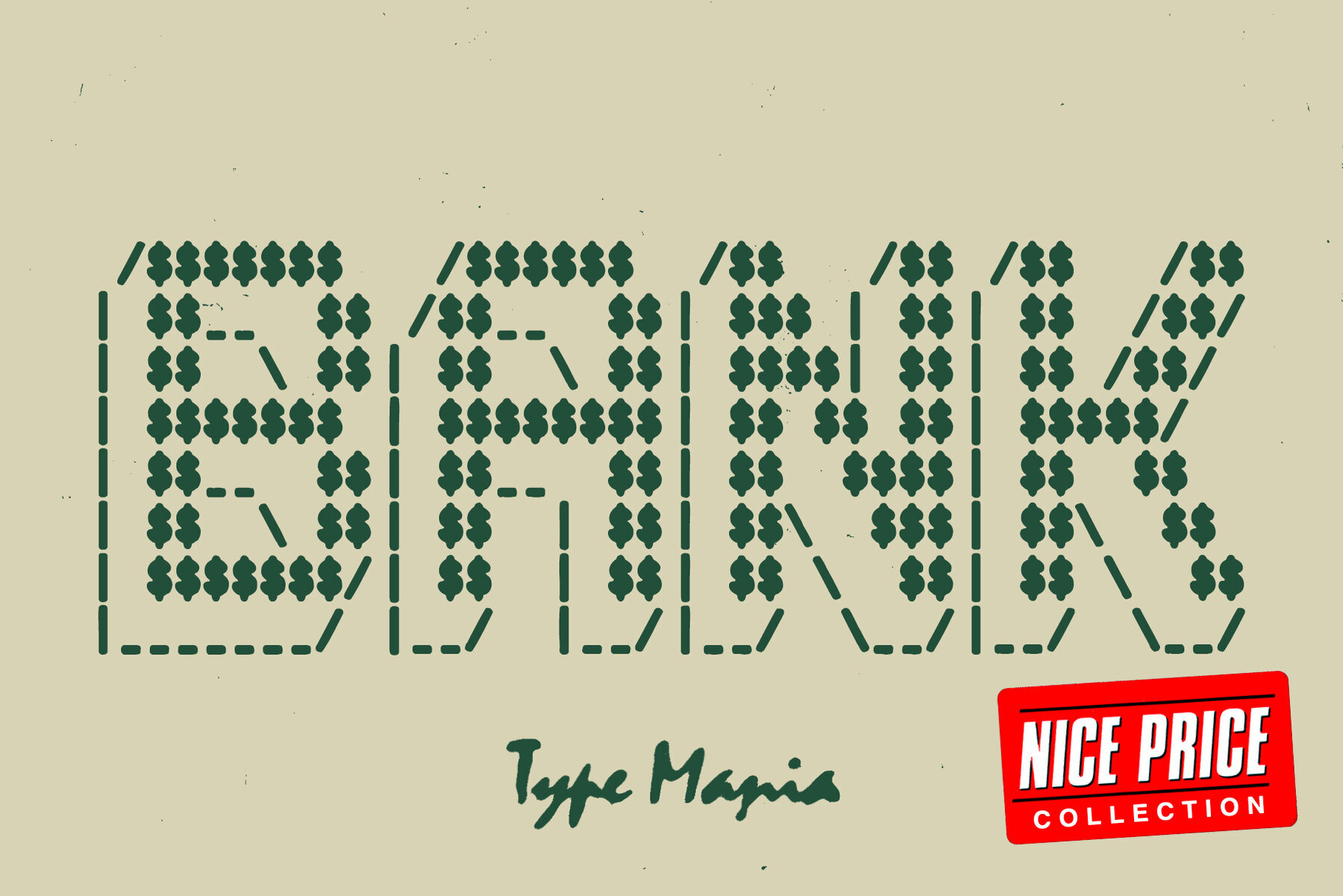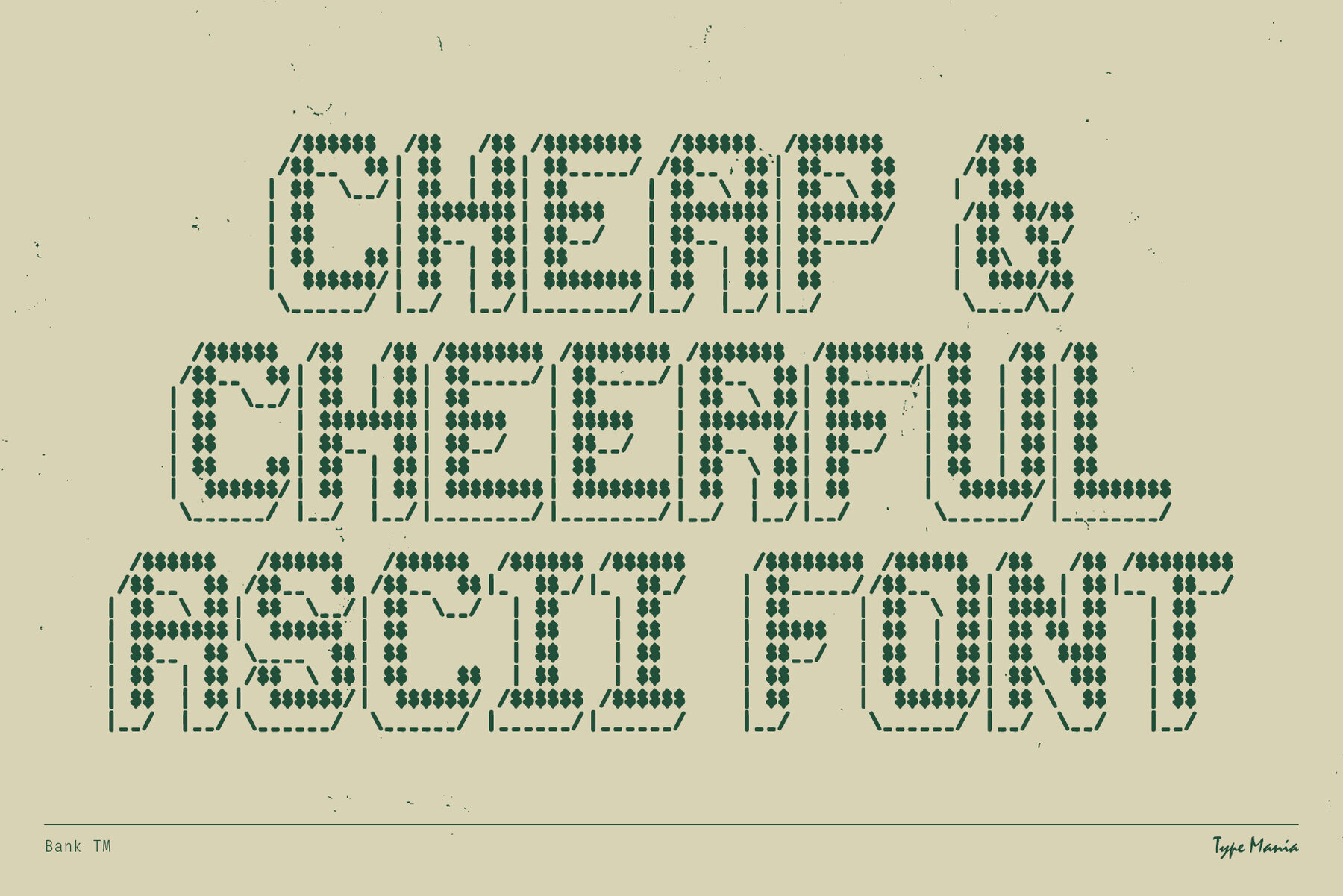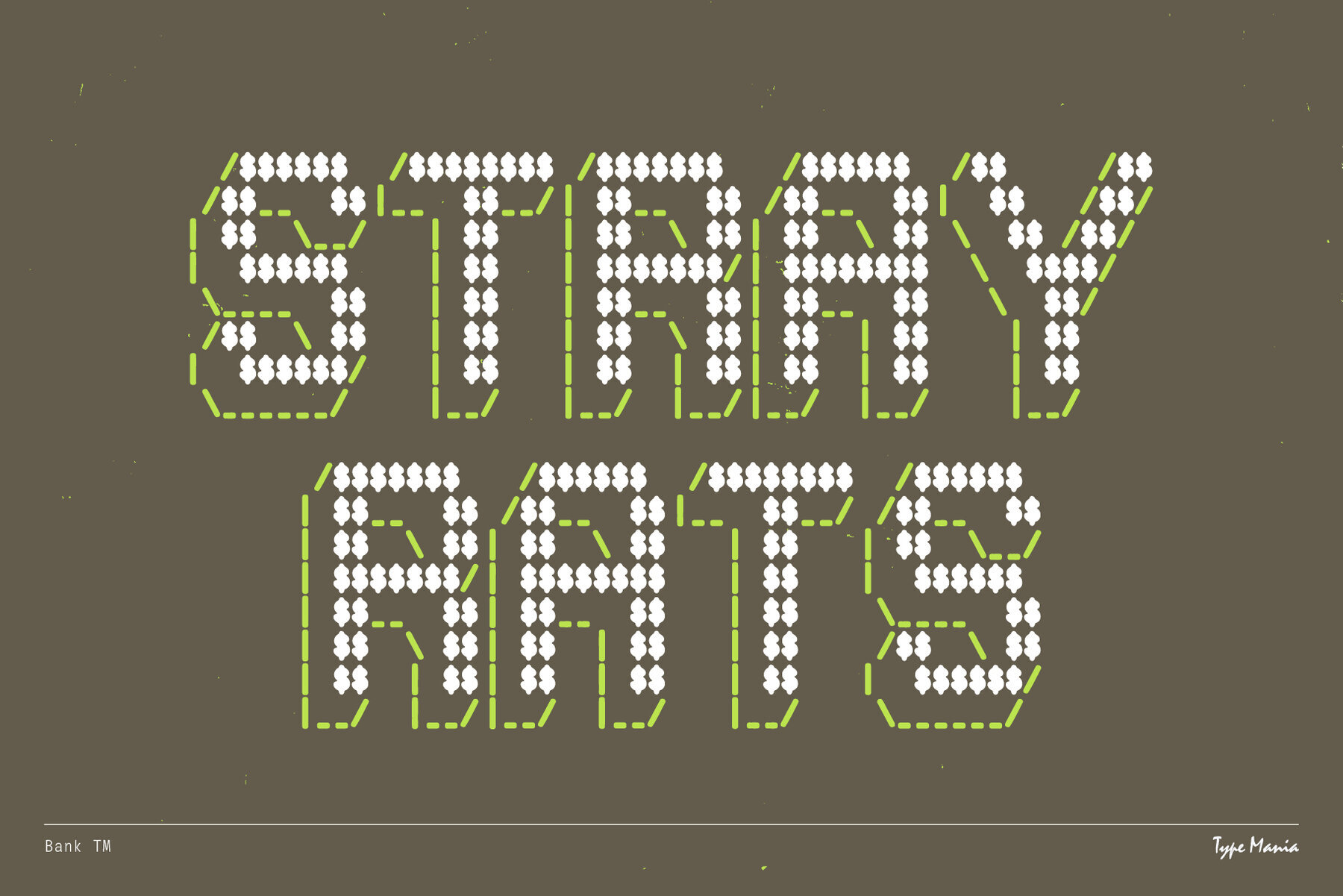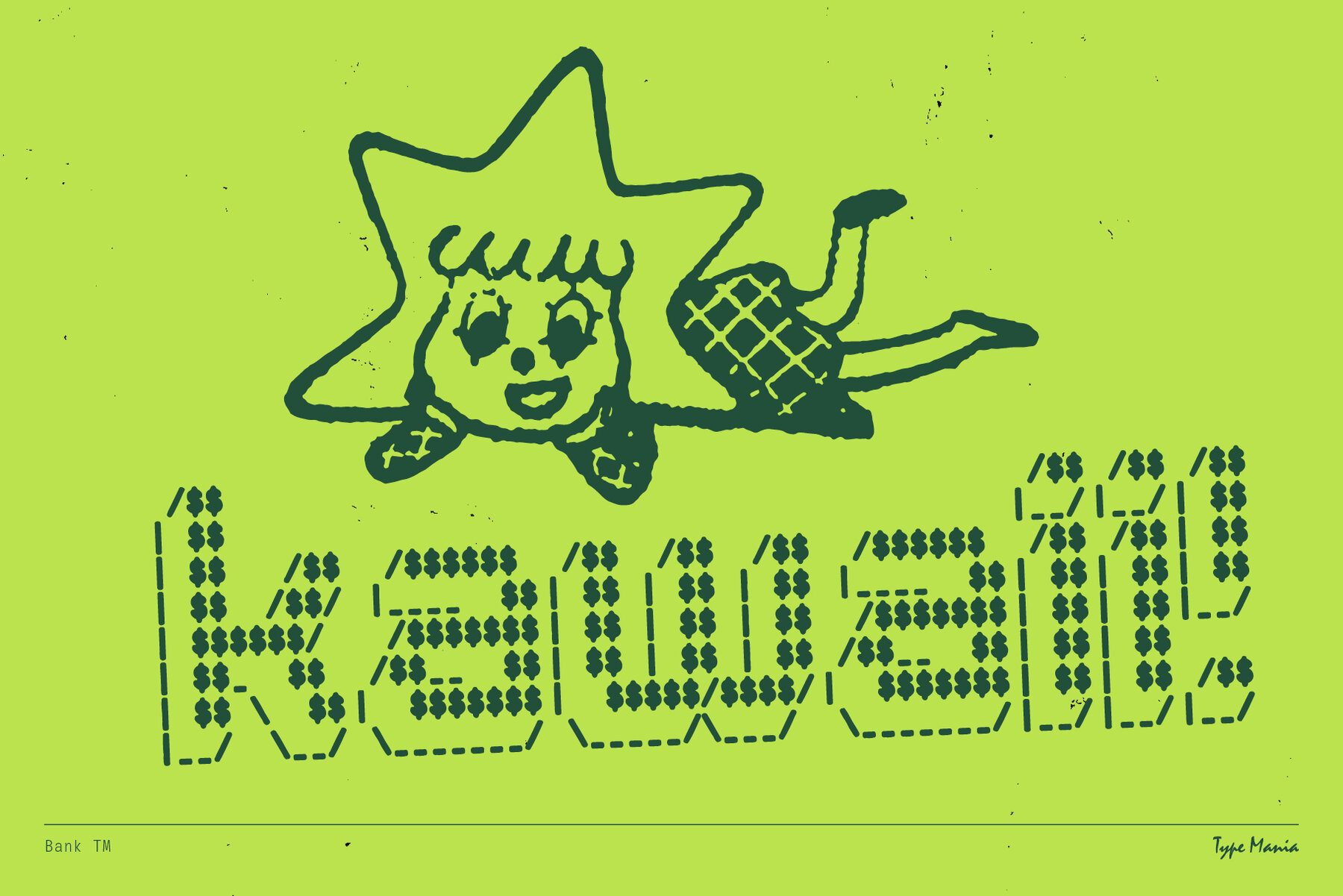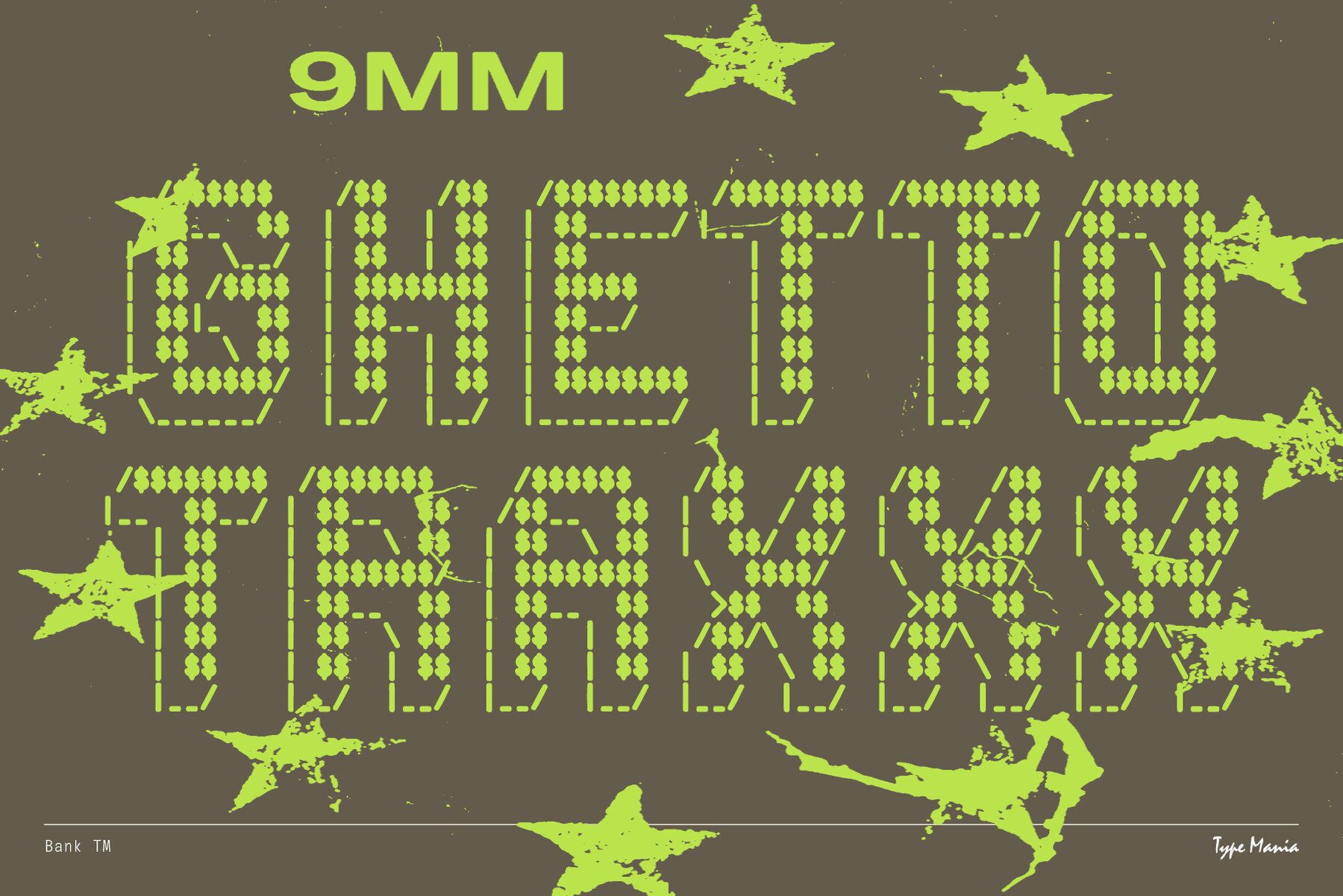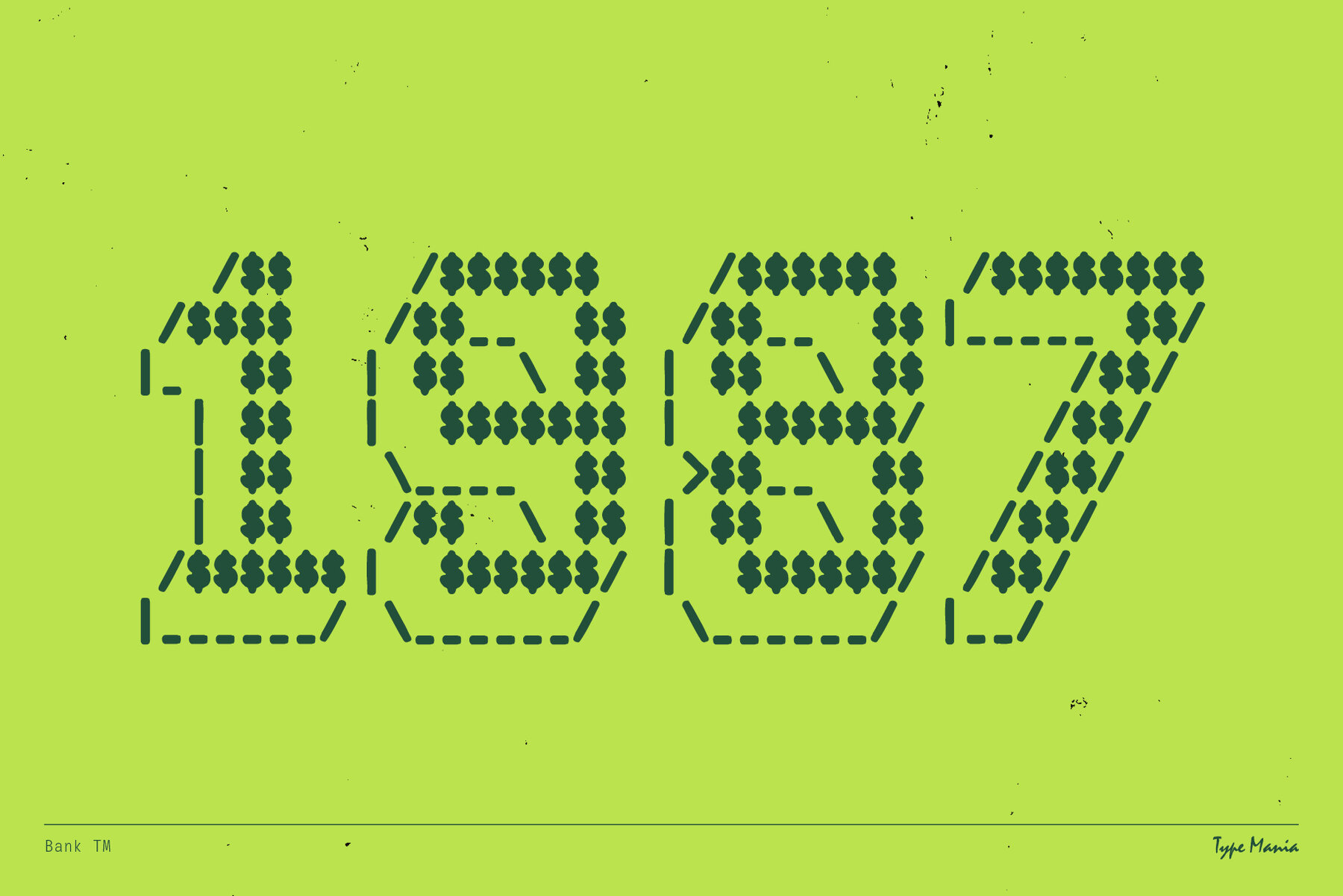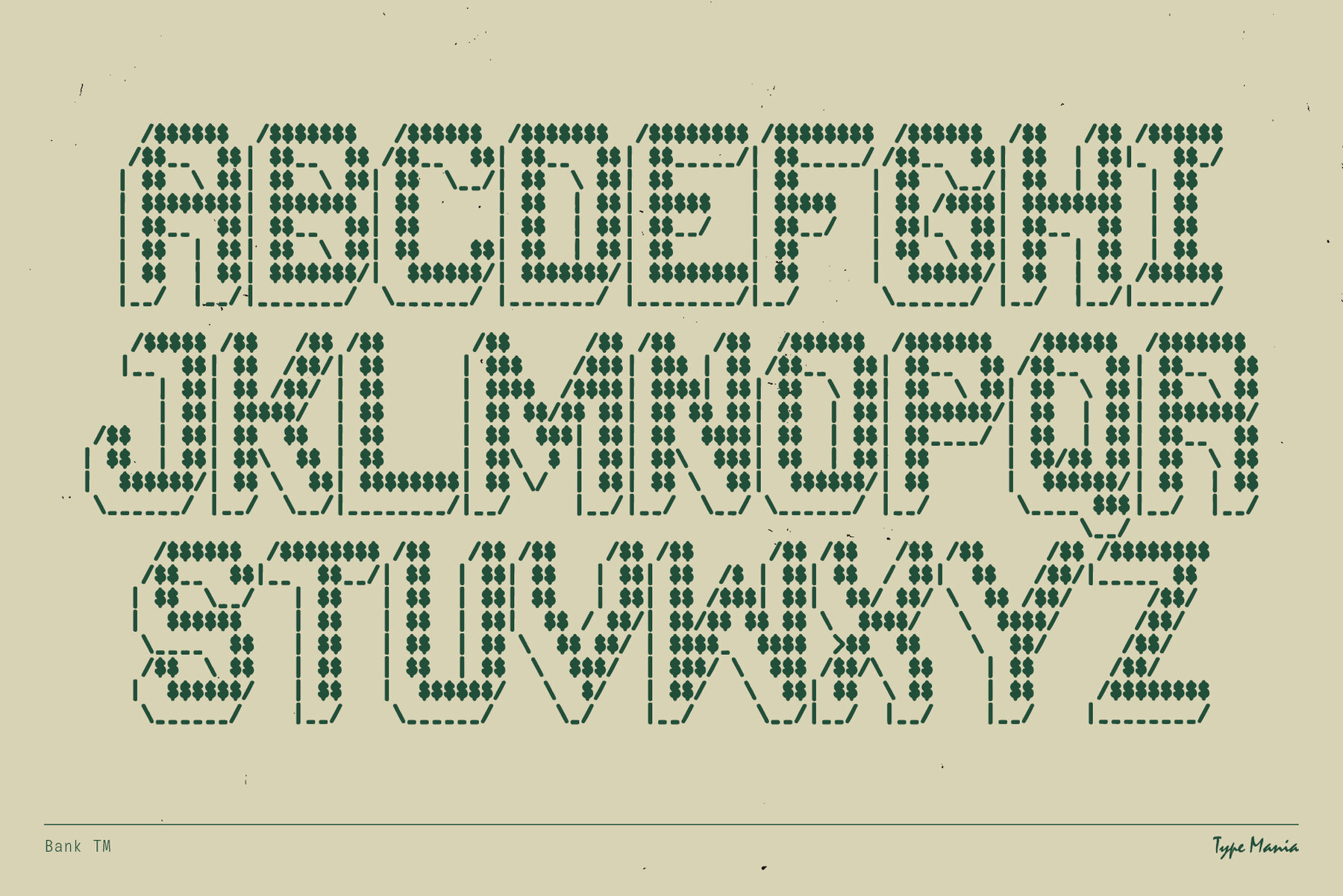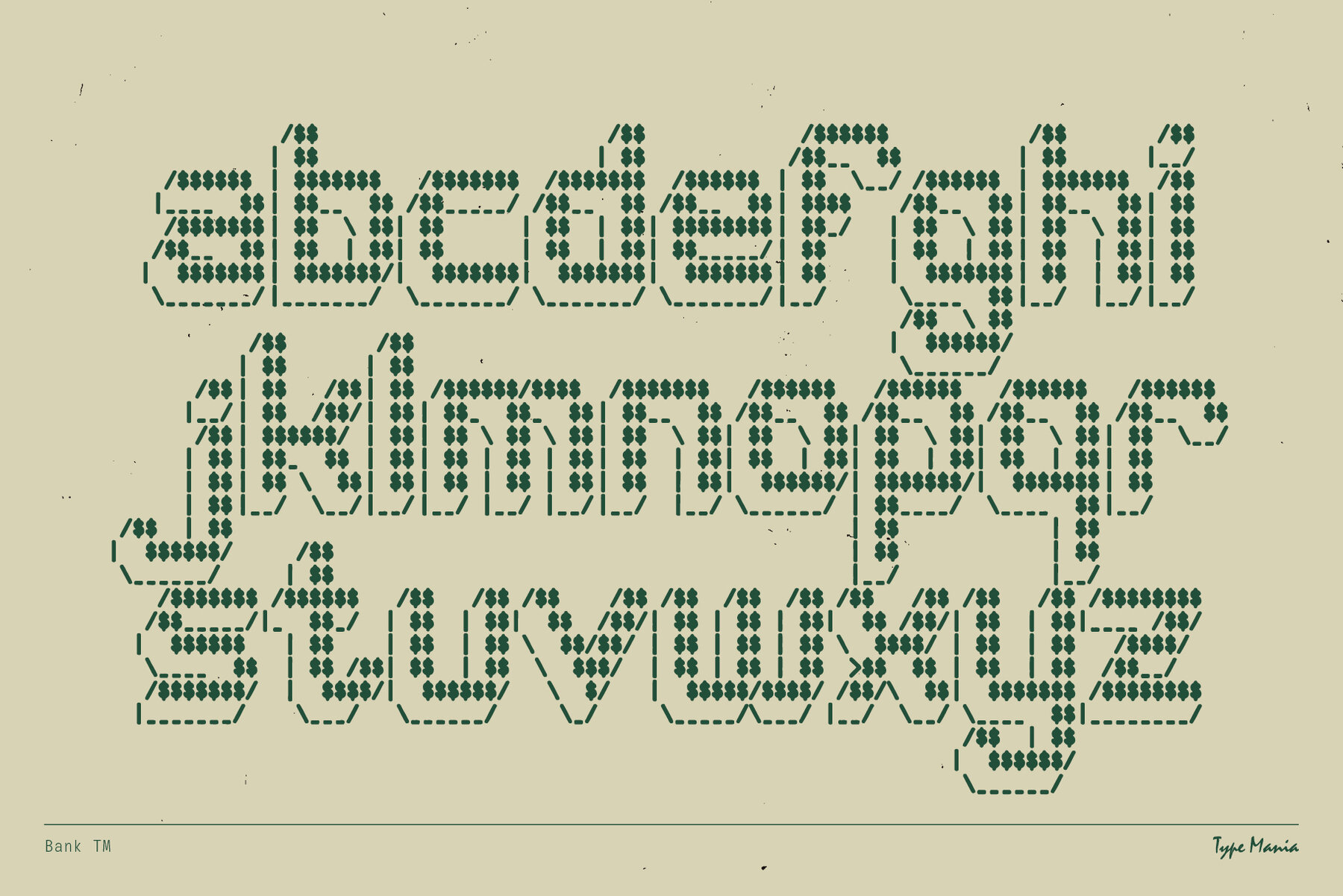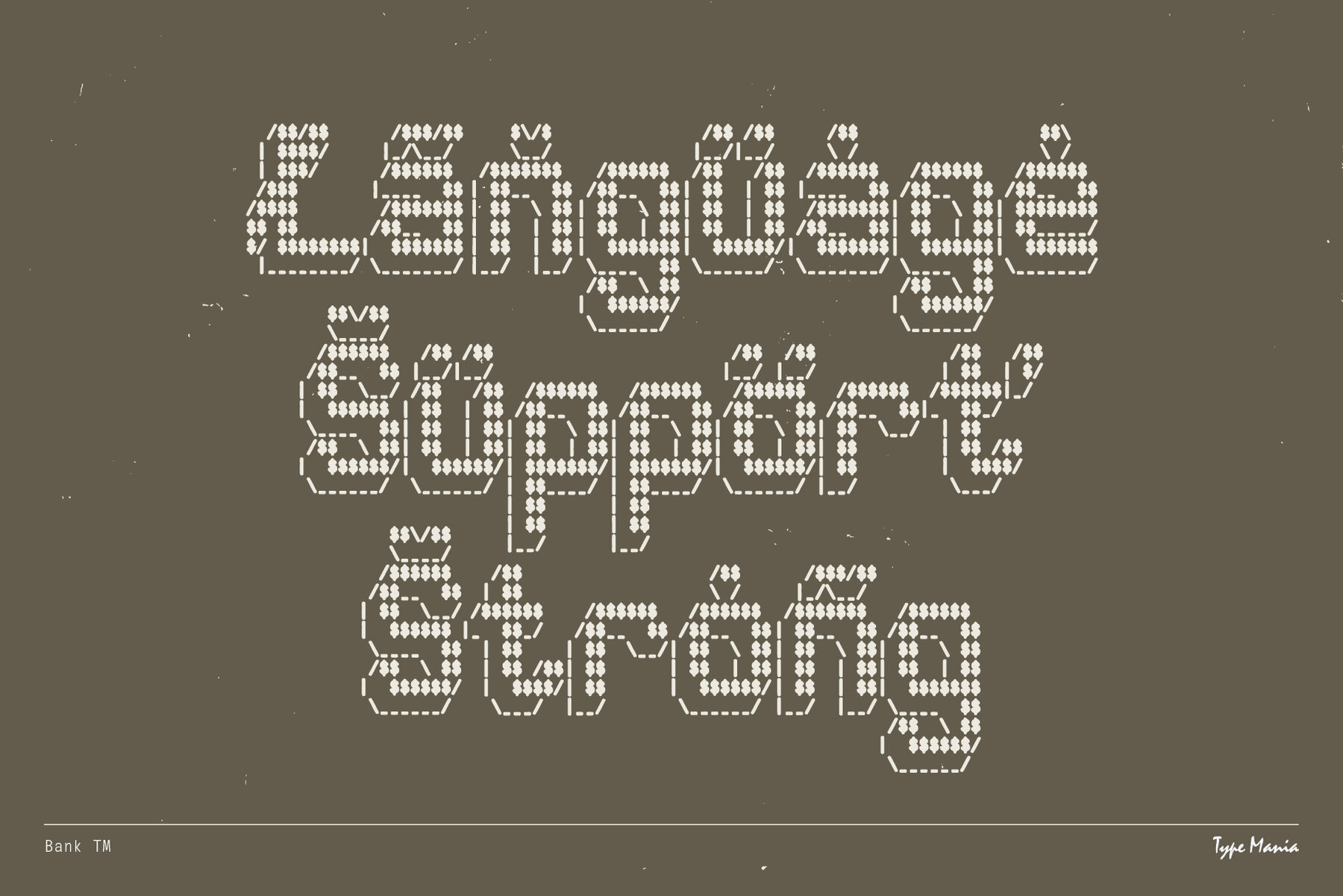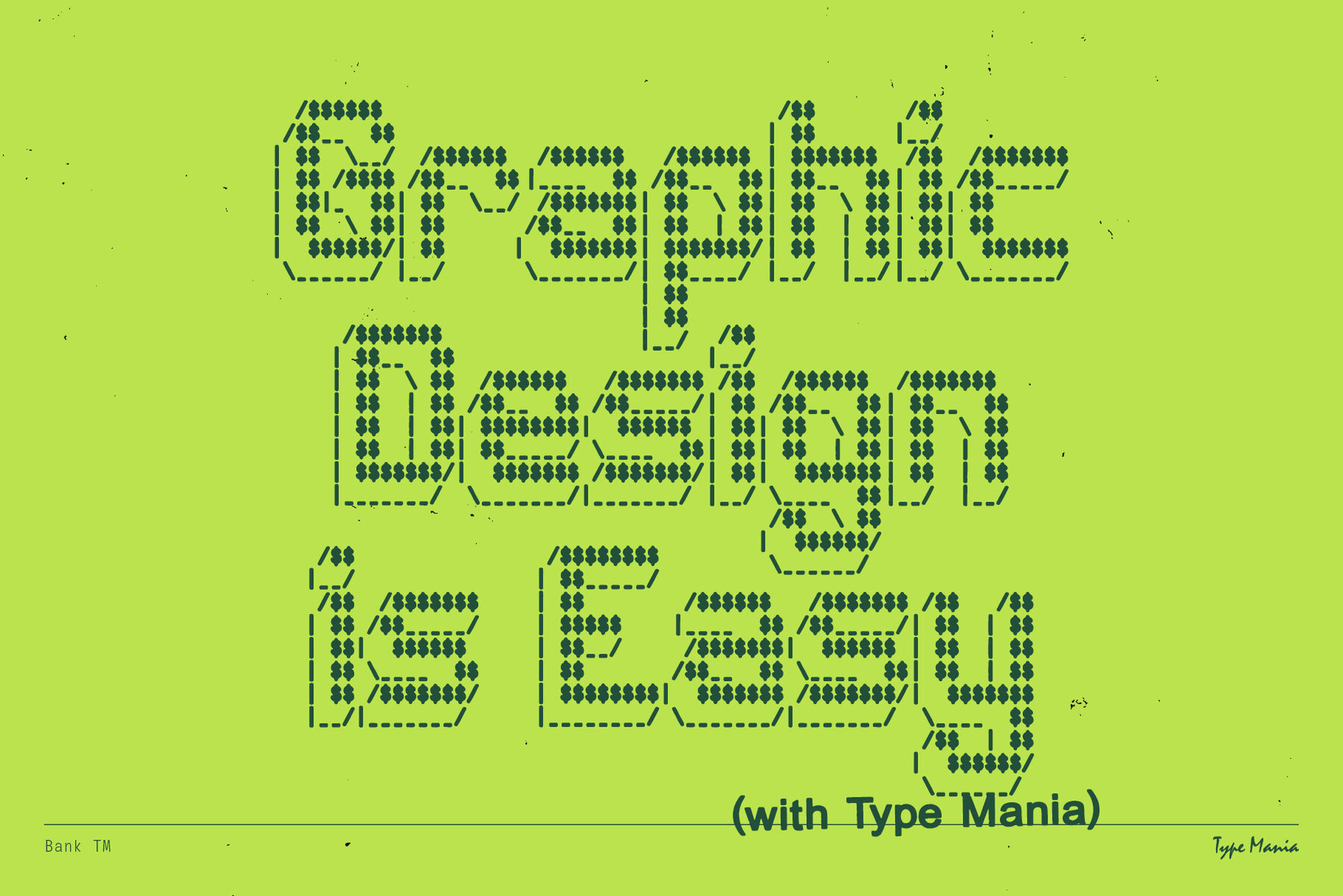
Bank TM Font
Bank TM Regular
Bank TM is a distinctive font designed to make a bold statement on various graphic design projects. Ideal for use on flyers, posters, and even as a stamp on labels, this font adds a unique touch to your creations. With its versatile design, it adapts seamlessly to any creative endeavor, whether you're designing for a bootleg 12" or any other imaginative project.
This font supports a wide range of languages, including Basic Latin, Western European, Euro, Central European, and Pan African Latin. Such extensive language support makes it a versatile choice for international design projects. Bank TM offers a creative edge for designers looking to explore new typographic possibilities and enhance their projects with a fresh and dynamic font choice.